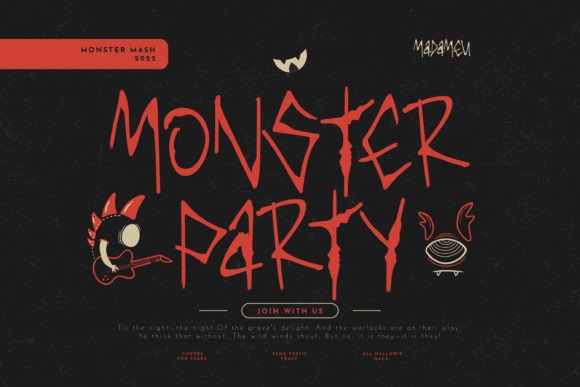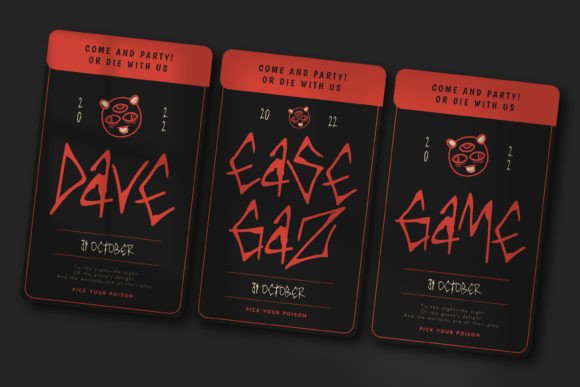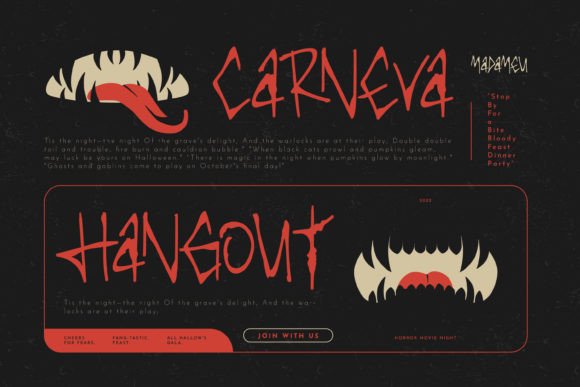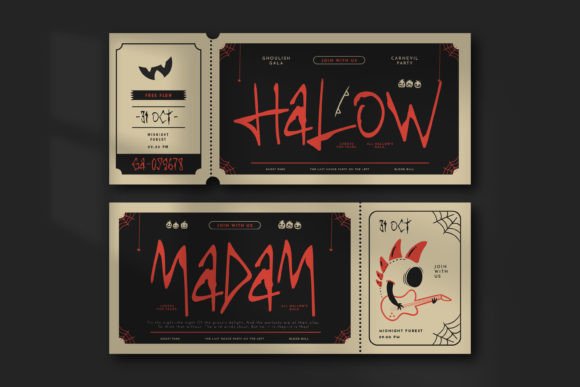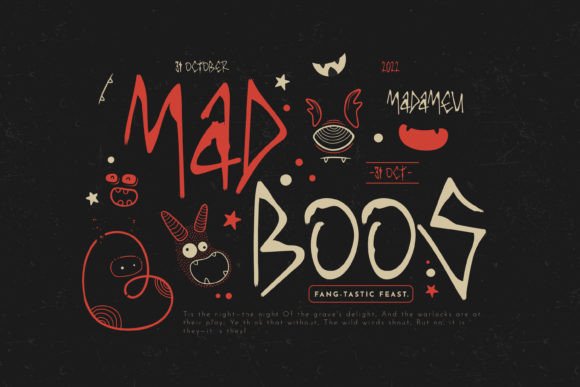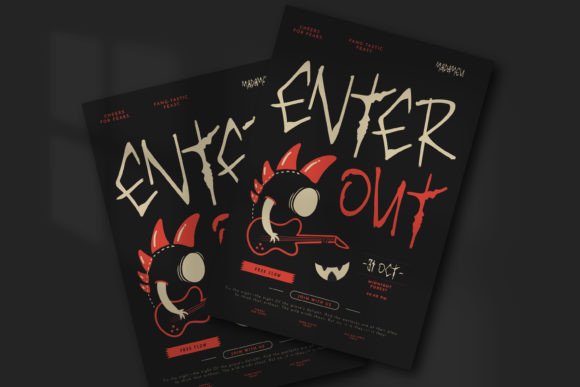
Introduction to Madameu Font
Have you ever stared at a blank canvas, wondering how to bring your creative vision to life? For designers, this moment of uncertainty is a familiar feeling. But what if you had the perfect tool to spark your imagination and give your designs a unique edge?
Enter the enchanting Madameu Font, a creative display font that’s sure to captivate your senses. With its uniquely shaped characters and playful personality, this font is perfect for designers who want to add a touch of whimsy and even a hint of eeriness to their projects.
Key Features of Madameu Font
- High-quality design resource with a unique and creative touch, perfect for various projects.
- Designed with a focus on high-resolution output, suitable for use in print and digital media.
- Includes a range of font sizes and styles, making it a versatile resource for designers.
- Supports various resolutions, including 72 dpi and 300 dpi, for optimal use in different design contexts.
Honest Review: Madameu Font
I recently came across the Madameu Font, and I must say it’s a great addition to any designer’s toolkit. As a design resource, it offers a unique and stylish aesthetic that can elevate any creative project.
One of the things that works well about the Madameu Font is its ability to be used on a transparent background, which makes it perfect for designing icons, logos, and other graphics where a clean and simple look is required. The font also comes in high quality, making it ideal for printing or digital use.
Here are some of the key features that make the Madameu Font stand out:
- High-quality design that’s perfect for printing or digital use
- Works well on transparent backgrounds
- Great for designing icons, logos, and other graphics
- Not suitable for large blocks of text due to its decorative nature
- May require additional styling to make it more readable
Overall, I’m really impressed with the Madameu Font. It’s a great resource for designers looking to add a touch of elegance and sophistication to their creative projects. With its high-quality design and versatility, it’s definitely worth checking out. ⭐️⭐️⭐️⭐️
How to Use Madameu Font
Madameu Font is a high-quality, creative project design resource that offers a unique and stylish look for your projects. With a transparent background, this font is perfect for adding a touch of elegance to your designs.
To use Madameu Font in PowerPoint/Word, follow these steps: 1. Open a new document in PowerPoint/Word. 2. Select the text tool and choose the Madameu Font from the font library. 3. Customize the font as needed and add it to your design.
Tips for Getting the Most Out of Madameu Font
Here are some tips to help you get the most out of Madameu Font: Use it for titles and headings to add a touch of elegance. Experiment with different font sizes and styles to create a unique look. Use it in combination with other design elements to create a cohesive design.
Madameu Font is perfect for: creating invitations and event graphics, designing logos and branding materials, adding a touch of elegance to social media graphics, and more.
Yes, the Madameu Font is a high-quality design resource, carefully crafted to provide a unique and stylish look for your creative projects. Its clean and elegant design makes it perfect for a wide range of design applications, from digital to print.